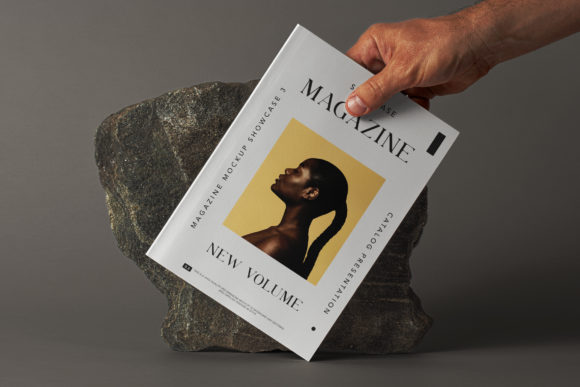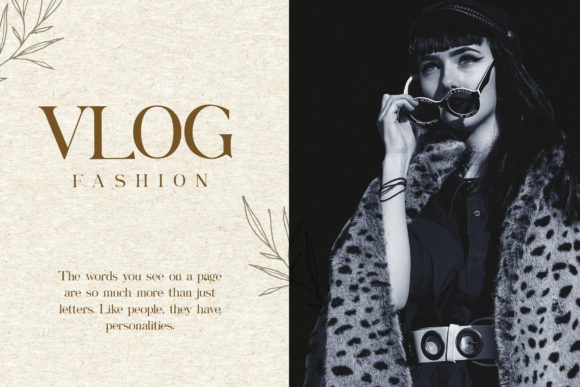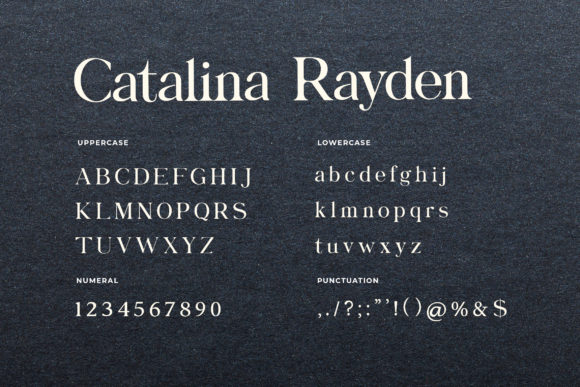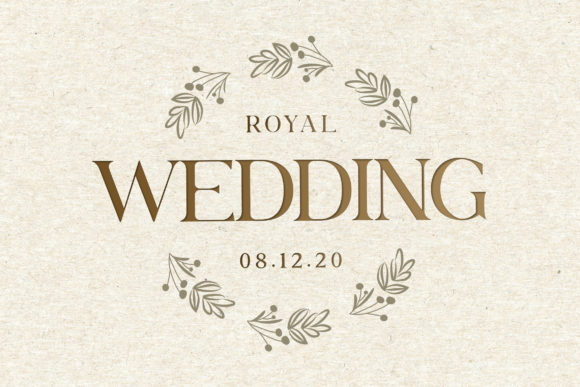
Catalina Rayden Font: Elevate Your Designs with Elegance and Sophistication
In the world of typography, fonts play a crucial role in conveying the tone and personality of a brand or design. For designers and crafters seeking a stylish and modern serif font, Catalina Rayden is an excellent choice. This elegant font is characterized by smooth curves, making it perfect for fashion branding, editorial designs, and a wide range of creative projects.
What Makes Catalina Rayden Font Stand Out?
Catalina Rayden is a meticulously crafted serif font that exudes sophistication and refinement. Its smooth curves and sleek lines make it an ideal choice for designers who want to add a touch of elegance to their work. Whether you’re creating a fashion brand, designing an editorial layout, or working on a creative project, Catalina Rayden is sure to impress.
One of the key features that sets Catalina Rayden apart is its versatility. This font can be used in a variety of contexts, from headlines and titles to body text and captions. Its clarity and readability make it perfect for both print and digital applications, ensuring that your designs look great in any format.
Perfect for Fashion Branding and Editorial Designs
Fashion branding and editorial designs require a font that is both stylish and sophisticated. Catalina Rayden meets these requirements with ease, providing a polished and refined look that elevates any design. Its modern serif design makes it perfect for:
- Fashion brand logos and marketing materials
- Editorial layouts, such as magazines and newspapers
- Packaging design, including labels and packaging materials
- Digital content, including blog posts and social media graphics
Why Choose Catalina Rayden Font?
There are many fonts available, but Catalina Rayden stands out for several reasons:
- Unique and distinctive design: Catalina Rayden’s smooth curves and modern serif design make it a one-of-a-kind font that will set your designs apart.
- High legibility: This font is designed to be clear and readable, ensuring that your message gets across effectively.
- Versatile: Catalina Rayden can be used in a wide range of contexts, from print to digital applications.
- Elegant and sophisticated: This font exudes refinement and polish, making it perfect for high-end brands and designs.
- Use it as a headline font: Catalina Rayden’s bold and stylish design makes it perfect for headlines and titles.
Catalina Rayden is a stylish and modern serif font that is perfect for fashion branding, editorial designs, and a wide range of creative projects. Its smooth curves and elegant design make it an excellent choice for designers and crafters seeking to add a touch of sophistication to their work. With its versatility, legibility, and unique design, Catalina Rayden is sure to become a go-to font in your collection.